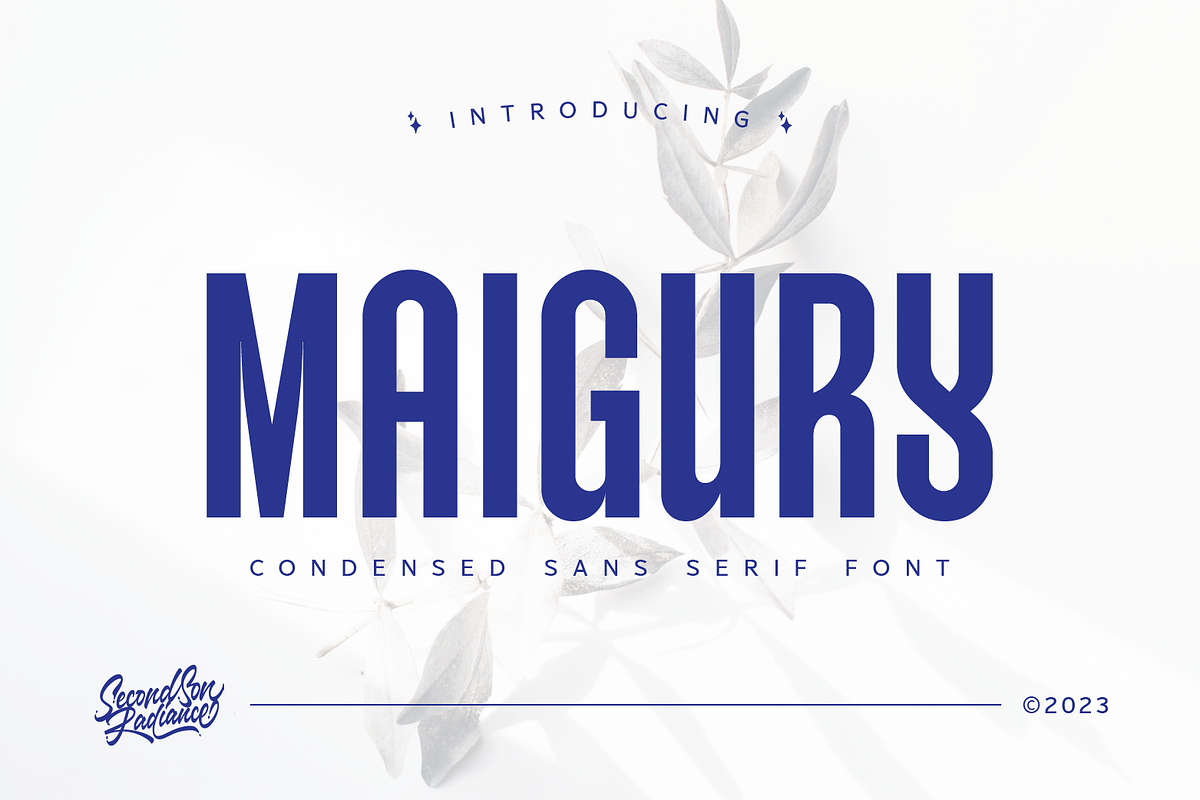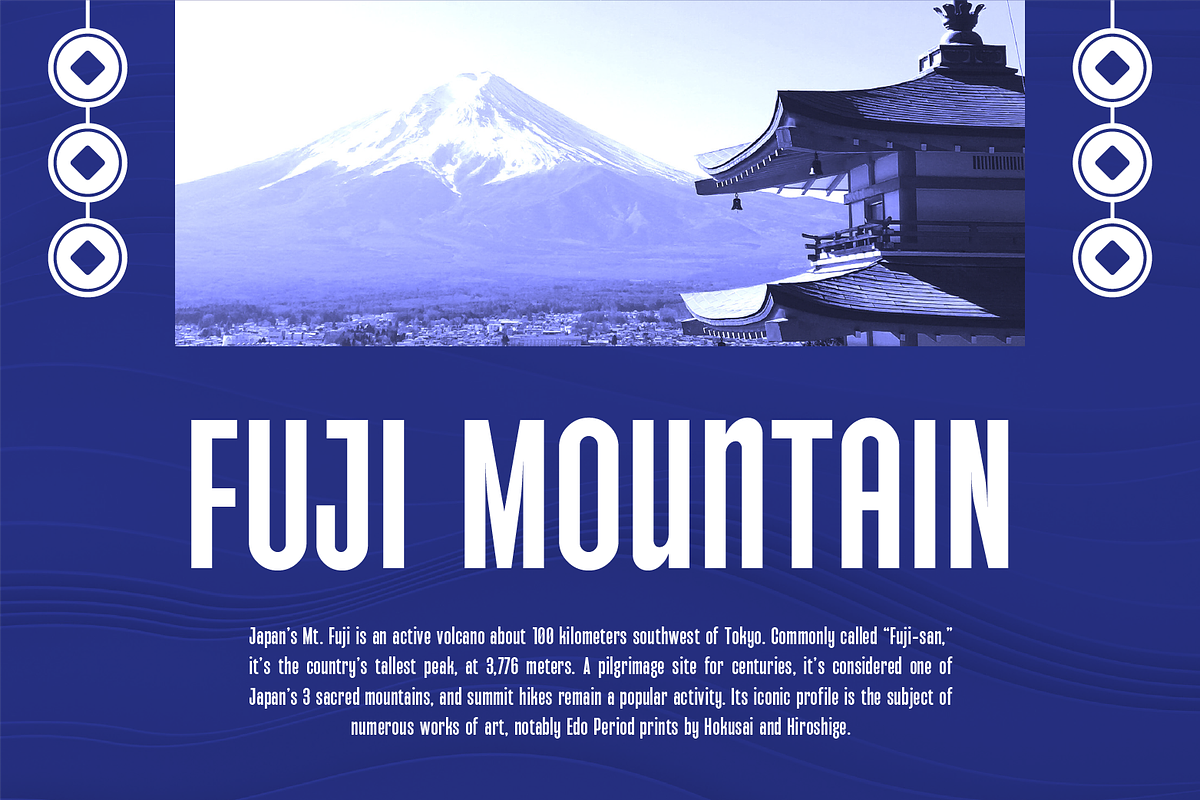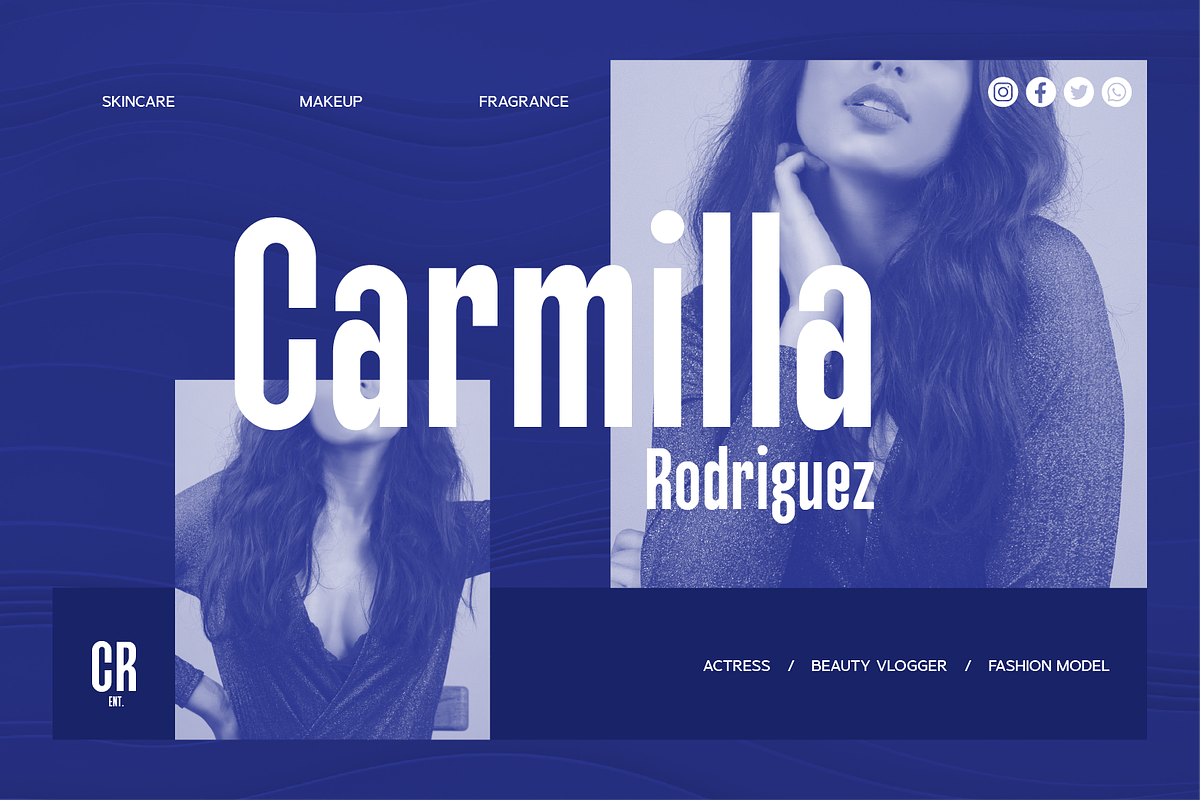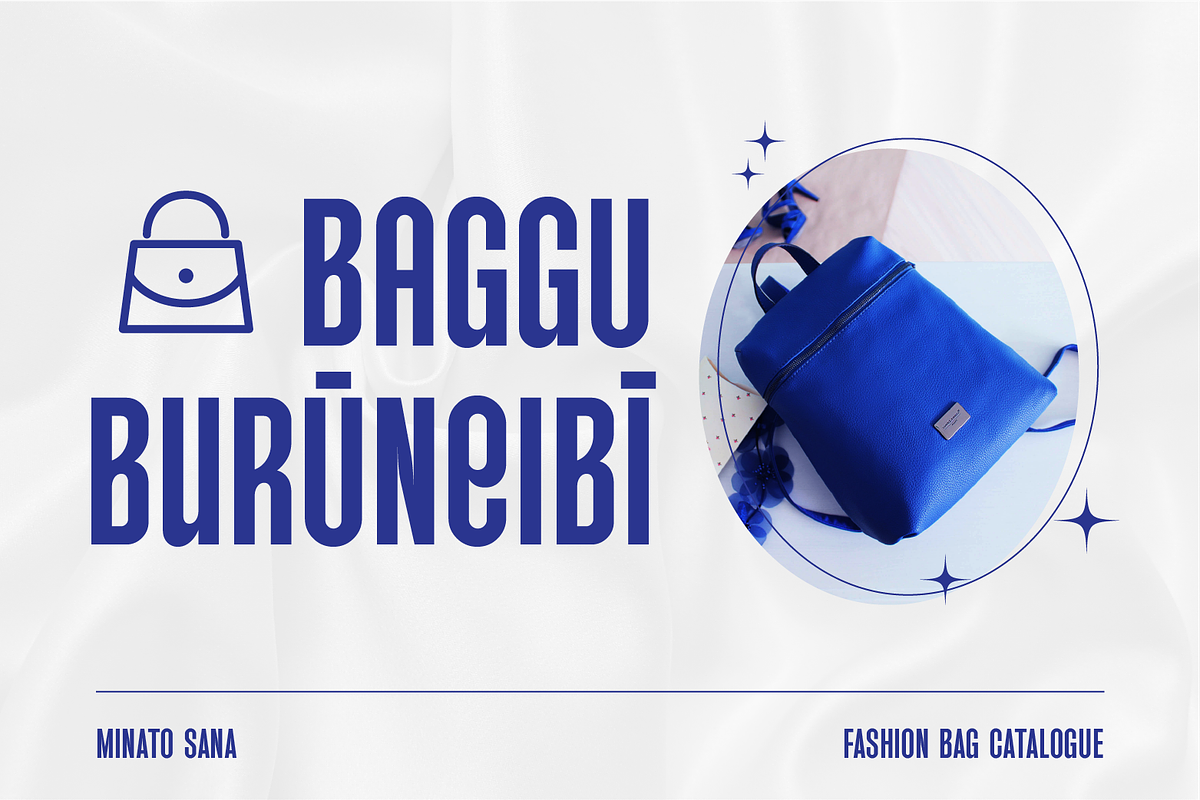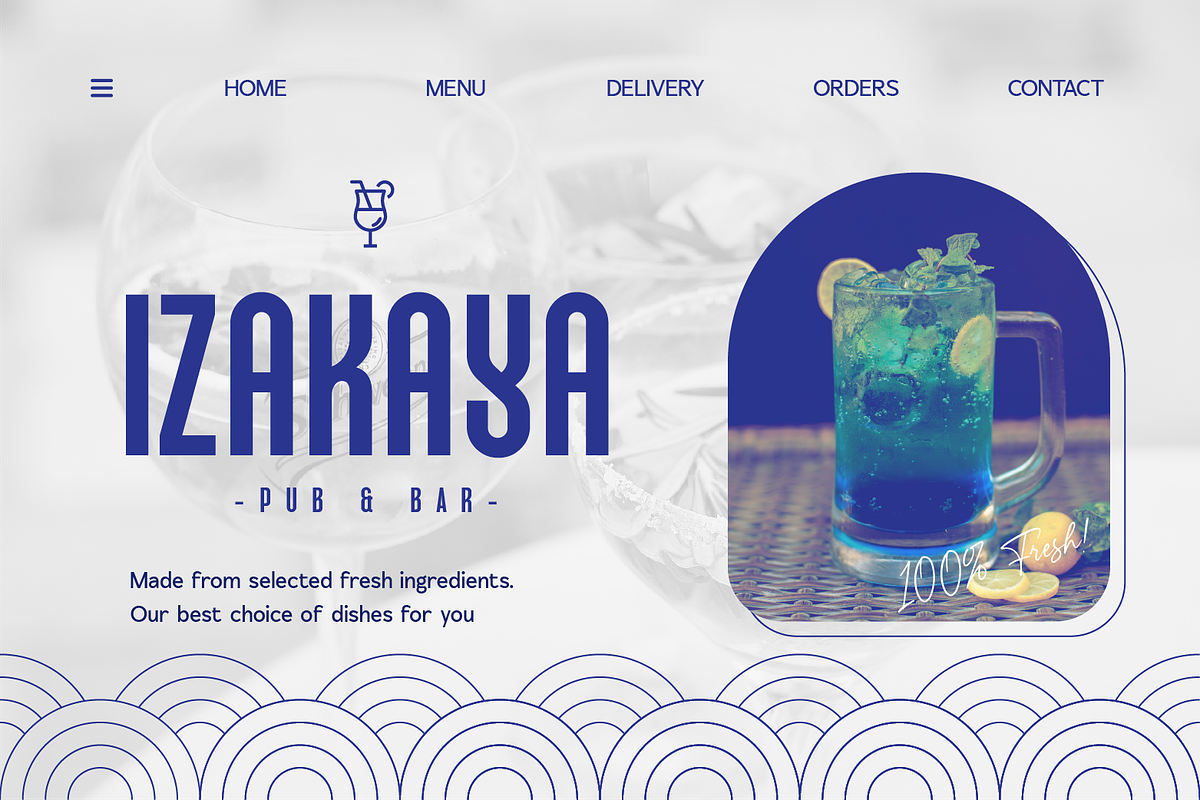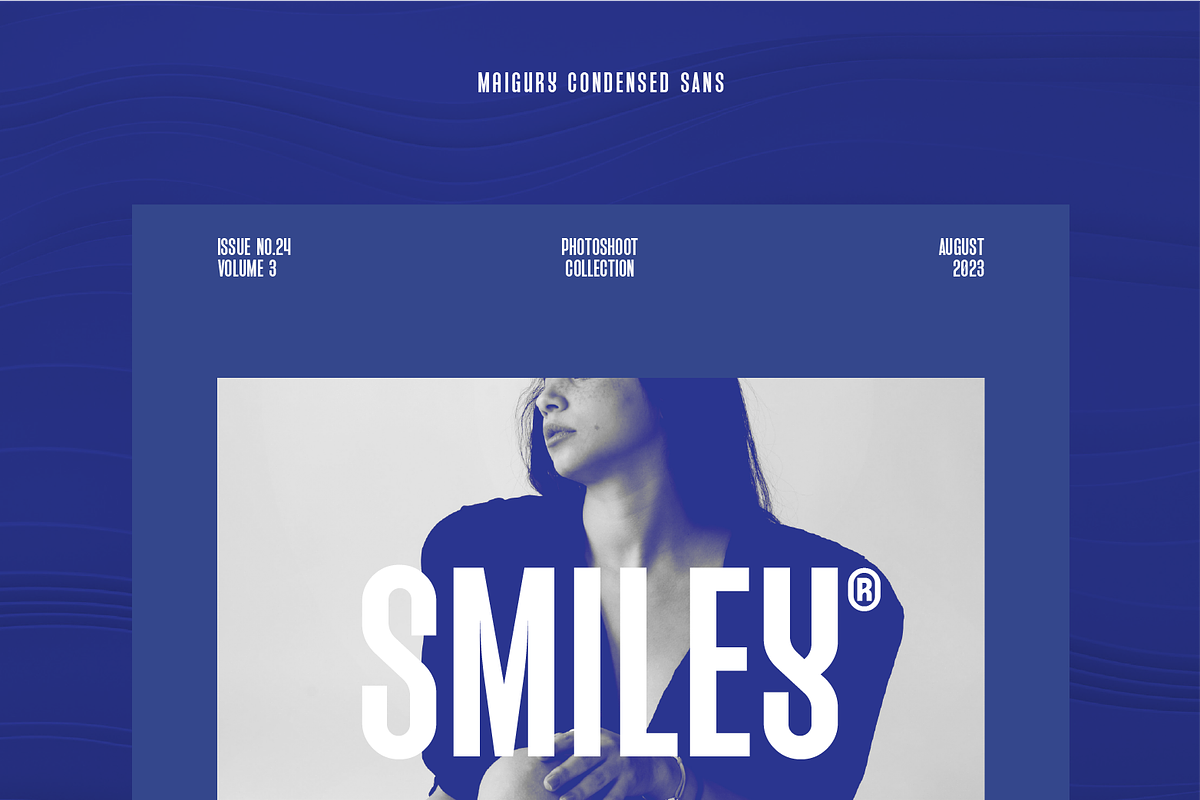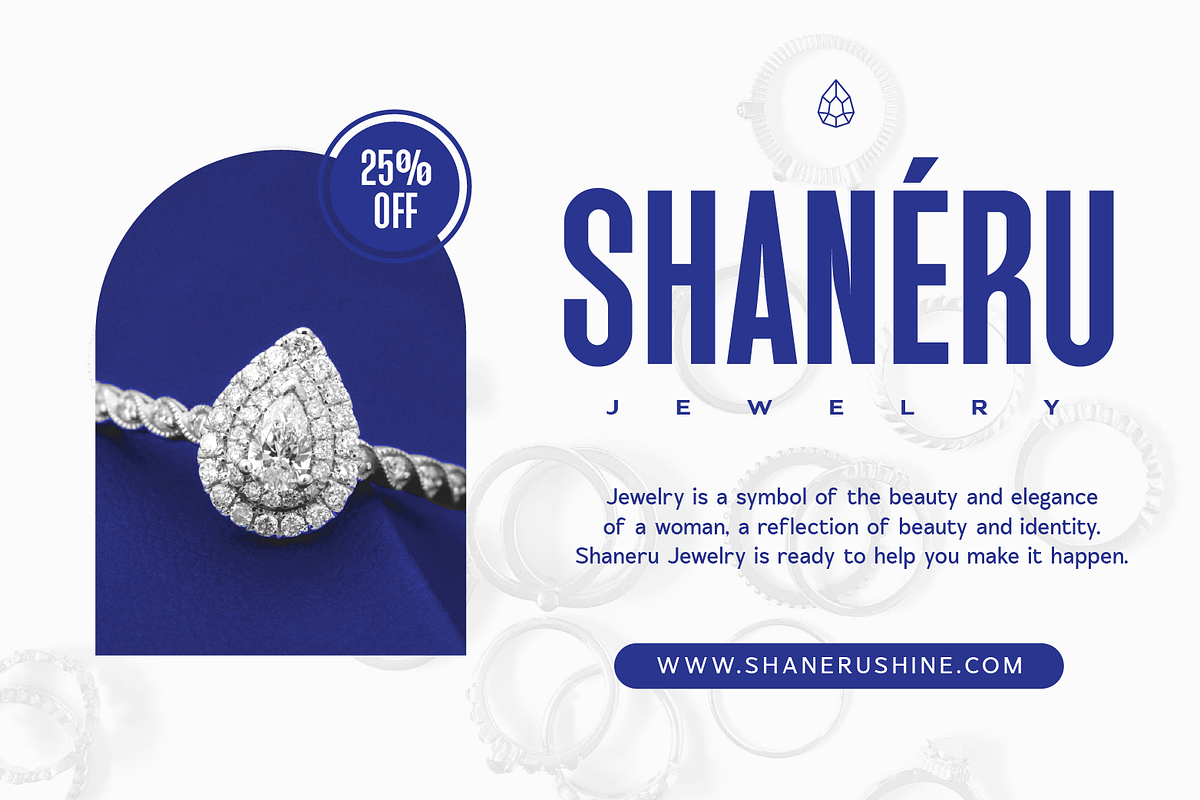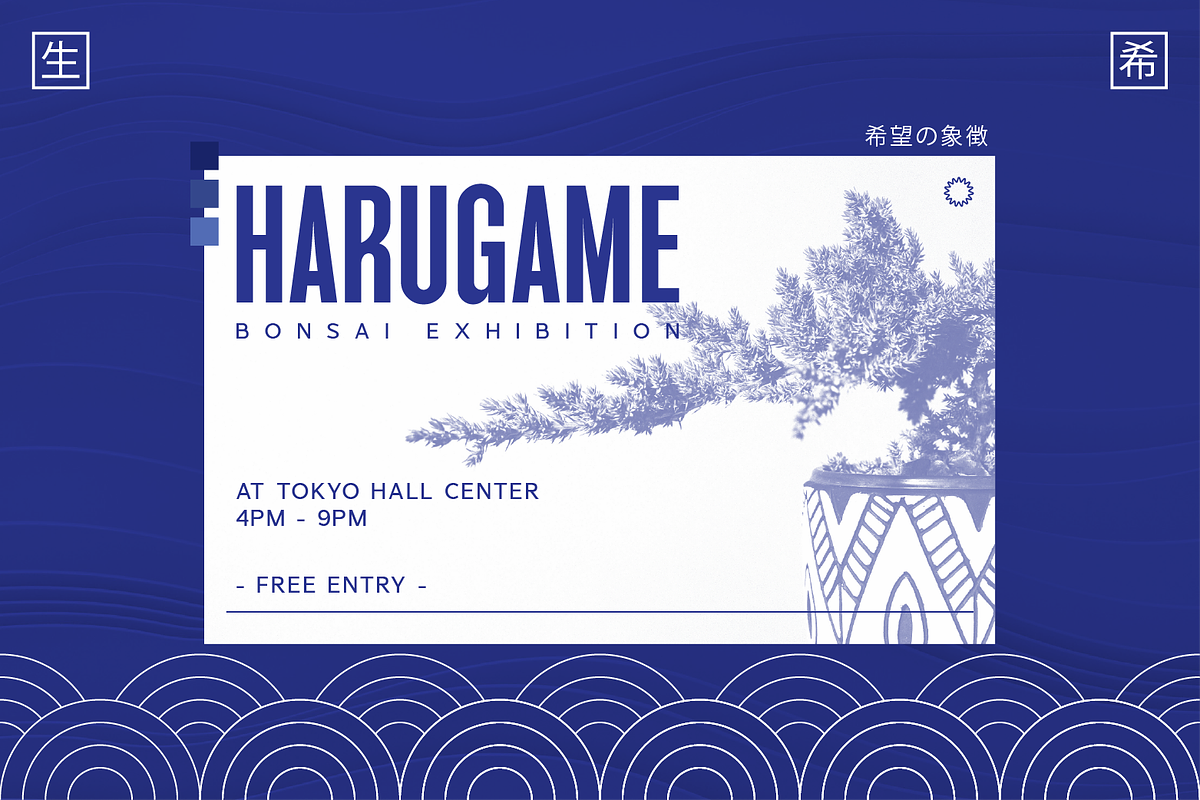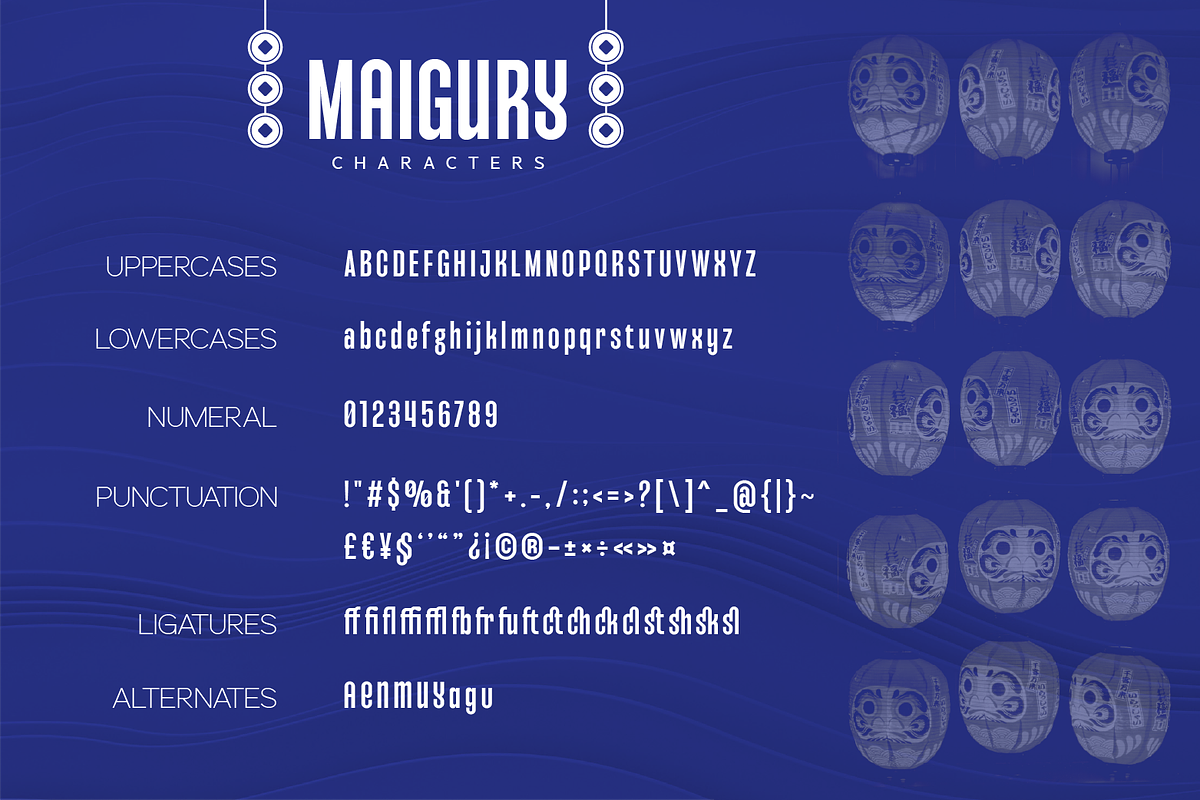
SS Maigury - Condensed Sans Font
Maigury is a sophisticated, charming sans serif font with a Japanese vibe. Specially designed for luxury, elegant, feminine projects, this font is perfectly suitable for any design needs : logo, branding, modern advertising design, holiday and traveling design, fashion and music, animation or movie title, poster quote, book / fantasy novel cover title, editorial design, website / blog, card, and more